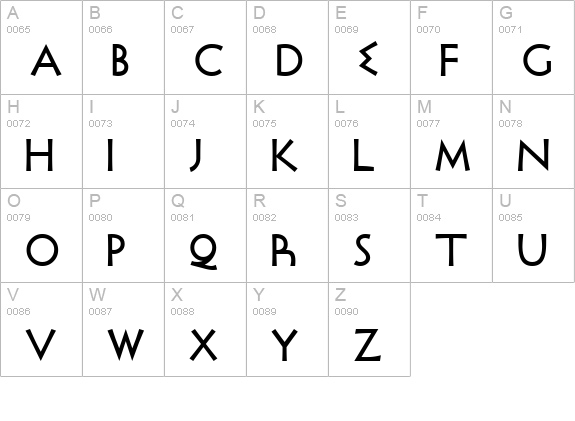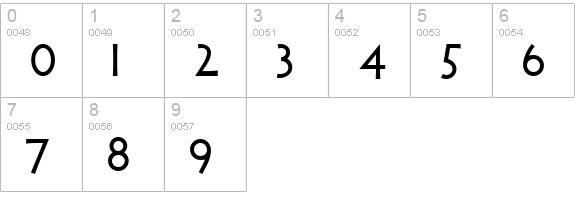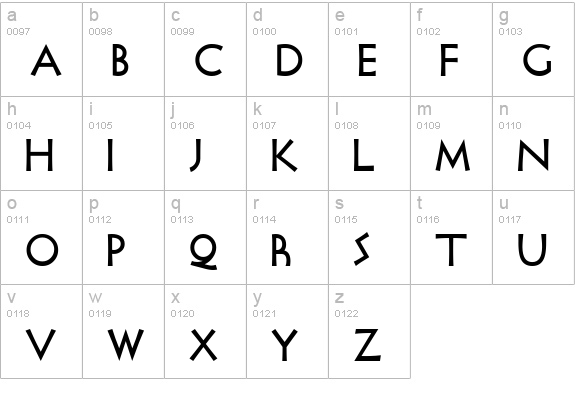
Persephone NF font is a stunning typeface that effortlessly combines elegance and modernity. With its delicate curves and graceful letterforms, this font exudes a sense of sophistication and refinement. Whether used for headlines, branding, or editorial design, Persephone NF adds a touch of timeless beauty to any project. What sets Persephone NF apart is not just its aesthetic appeal, but also its accessibility. This font is available for free download at FontsMarket.com, making it easily accessible to designers, creatives, and enthusiasts alike. The creators of Persephone NF believe in the power of freely sharing creative resources, and this font is a testament to their dedication to the design community. With its generous range of weights and styles, Persephone NF offers versatility in its usage. From the bold and impactful to the subtle and delicate, this font allows designers to effortlessly communicate their messages with precision and style. Its legibility and clarity make it suitable for both print and digital applications, ensuring that your design will always look polished and professional. Persephone NF font is a perfect choice for projects that require a touch of sophistication and elegance. Its timeless beauty and freely available download option at FontsMarket.com make it a must-have for any designer's collection. Whether you're creating a logo, designing a website, or working on a book cover, this font will elevate your designs to new heights and leave a lasting impression on your audience. So go ahead and download Persephone NF today to unleash your creativity and bring your design visions to life.